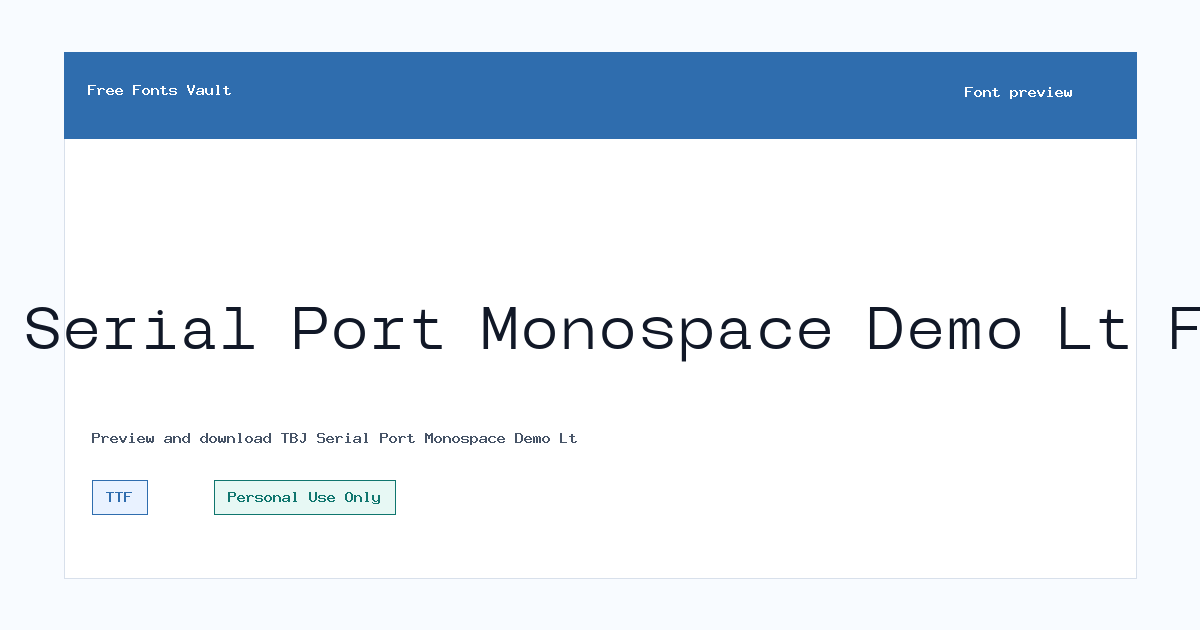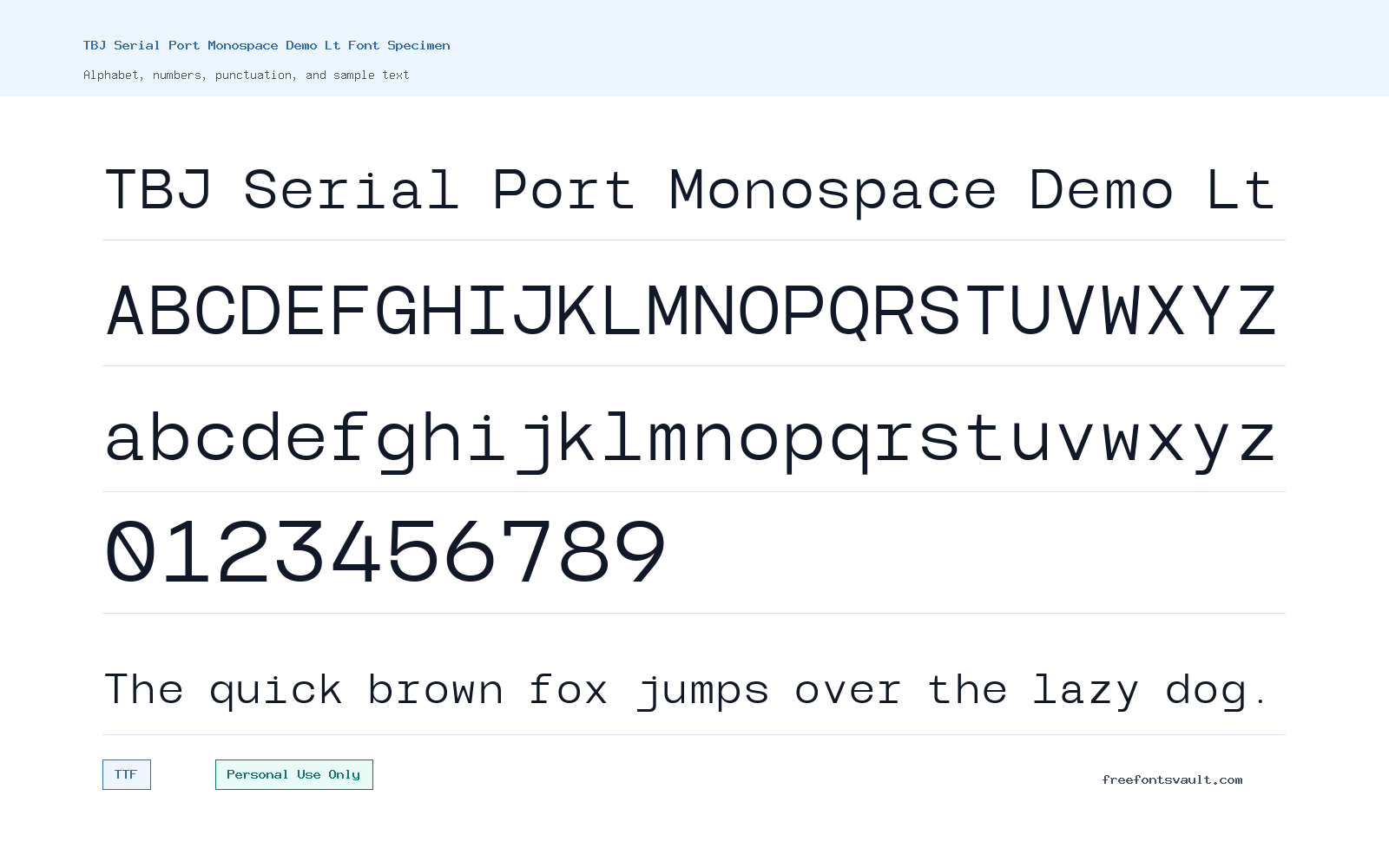
TBJ Serial Port Monospace Demo Lt
- Designer Arif Rijal
- Foundry Taboja Studio
TBJ Serial Port Monospace Demo Lt font.
TBJ Serial Port Monospace Demo Lt is a light-weight monospace demo font from Taboja Studio. It is suited to users who want a clean, technical-looking type style for previews, personal design tests, and layout experiments.
About TBJ Serial Port Monospace Demo Lt
TBJ Serial Port Monospace Demo Lt is built around a monospace structure, meaning each character is intended to occupy a consistent amount of horizontal space. That kind of rhythm can be useful when you want text to feel ordered, digital, or system-like without relying on a standard coding font. The “Lt” name and 300 weight indicate a lighter style, so it should work best where the design has enough room for thin strokes to stay visible.
- Monospace-style family with a consistent, technical text rhythm
- Normal style variant suitable for straightforward text previews
- Works well for short text where spacing and structure are part of the look
- Useful for testing tech, code, interface, label, and poster concepts
- Personal tech poster drafts
- Interface and dashboard mockups
- Short logo concept sketches
- Coding-themed graphics
- Product label experiments
- Minimal title treatments
- Web design mockups
- Previewing light monospace typography
Use this font where the light monospace feel supports the message rather than where long reading comfort is the main goal. It should be strongest in short lines: names, labels, codes, poster titles, buttons, captions, and display text. For logo work, test both uppercase and lowercase forms, then check the result at small sizes because light strokes can lose impact when reduced. For web mockups, pair it with a simple sans serif for body copy so the monospace style remains a deliberate accent instead of making the whole layout feel rigid. If you use it over images or colored backgrounds, increase contrast and spacing so the lighter weight remains readable.
Who designed TBJ Serial Port Monospace Demo Lt?
The font is credited to Arif Rijal, with Taboja Studio listed as the foundry.
What weight is this version?
This version is listed as a 300-weight light style.
What is this font best used for?
It is best tested in short design settings such as tech posters, interface mockups, labels, code-inspired graphics, and personal logo concepts.
Is this a good font for long paragraphs?
It is better suited to short text and display use. For longer reading, pair it with a more neutral body font.